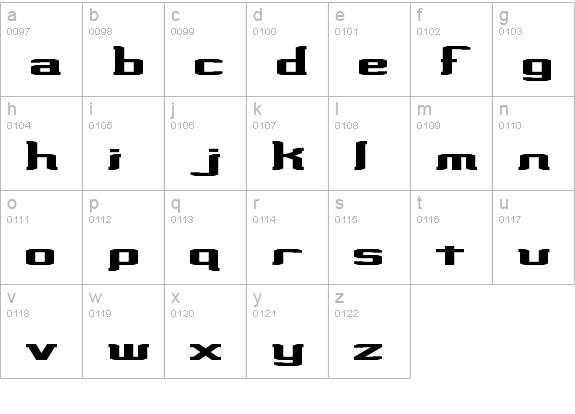
Variance -BRK- Font Details
Variance -BRK- is a sleek and modern font that exudes a sense of sophistication and style. With its clean lines and bold strokes, this font is perfect for making a statement in any design project. Whether you are creating a logo, designing a website, or crafting a poster, Variance -BRK- is sure to catch the eye and leave a lasting impression. What sets Variance -BRK- apart is not only its stunning aesthetics but also the fact that it is available for free. Yes, you read that right! This incredible font can be downloaded without any cost, making it a valuable asset for both personal and commercial use. FontsMarket.com is proud to offer Variance -BRK- as a free download, allowing designers and creatives from all walks of life to access this amazing font and bring their visions to life. With its versatile nature, Variance -BRK- can be used in various design projects, from branding and advertising to social media graphics and print materials. Its legibility and readability make it perfect for both headlines and body text, ensuring that your message is conveyed effectively and professionally. The designers behind Variance -BRK- have put great care and attention into every detail, resulting in a font that is not only visually stunning but also easy to work with. Its extensive character set includes uppercase and lowercase letters, numbers, punctuation marks, and special characters, providing you with endless possibilities for creative expression. So why wait? Head over to FontsMarket.com and discover the world of Variance -BRK-. Download this extraordinary font for free and unlock a world of design possibilities. Let Variance -BRK- elevate your projects to new heights with its modern elegance and undeniable charm.